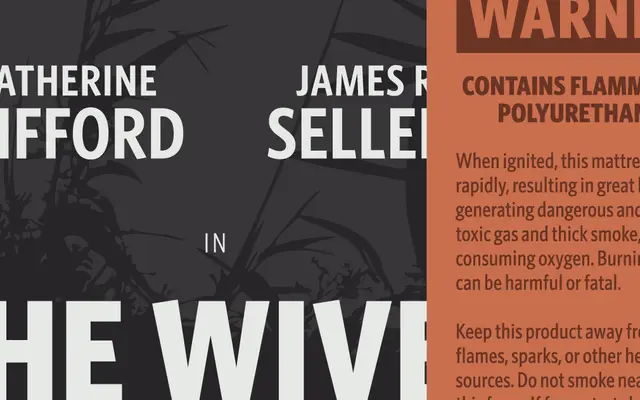
Whitney Condensed
Hoefler & Co · Tobias Frere-Jones · 2010
Whitney Condensed specimen from Hoefler & Co
The condensed cut of Whitney, holding the family's humanist signage voice at tighter measures for headlines, charts and forms.
A condensed humanist sans by Tobias Frere-Jones that compresses Whitney without losing its signage clarity. Six weights from Light to Black with matching italics, designed to sit alongside the standard and Narrow widths. Used in editorial, financial and information design where space is short but the brand still wants Whitney's calm institutional reading.
H&Co frame Whitney Condensed as the most compact width within the Whitney system, holding the family's humanist voice at tighter measures for headlines and tabular settings.